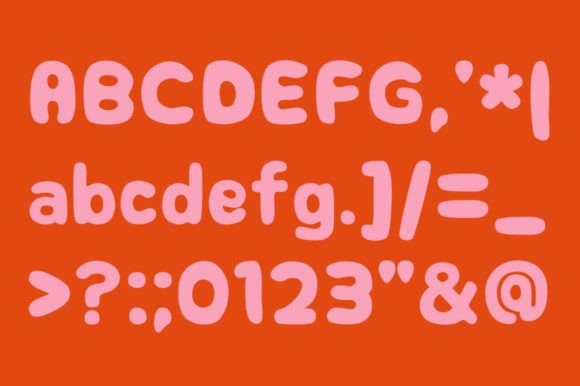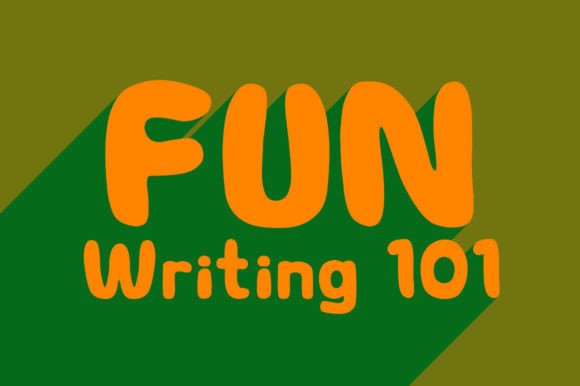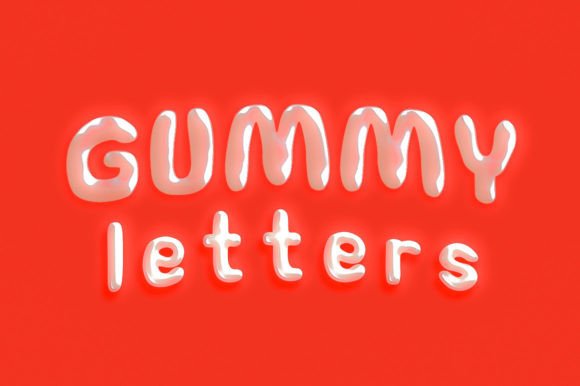
Introduction to Gummy Letter Font
As a designer, have you ever found yourself stuck in a creative rut, searching for that perfect font to give your project an extra oomph? You know, that moment when you’re scrolling through your design resources, and suddenly, a font catches your eye, and you just know it’s the one. For me, that moment came when I stumbled upon the Gummy Letter Font – a gum/gummy bear-inspired round fat bold font that’s been a game-changer for my design projects.
With its fun and casual look, the Gummy Letter Font is perfect for adding a personal touch to your projects. Whether you’re designing a logo, creating a brand identity, or taking notes, this font is sure to make your creative project stand out. And the best part? It’s available for free download, making it an accessible design resource for designers of all levels.
What sets the Gummy Letter Font apart is its high-quality design, which includes a transparent background option, allowing you to easily customize it to fit your project’s needs. Whether you’re working on a digital or print design, this font is a valuable addition to your design toolkit.
Key Features of Gummy Letter Font
- Unique, hand-drawn design for a creative project, perfect for adding a playful touch
- Perfect for adding a pop of color and whimsy to packaging, signage, and other creative projects
- Includes a range of lettering styles and combinations to suit different design themes and styles
Honest Review: Gummy Letter Font
I recently stumbled upon the Gummy Letter Font, a design resource that has been making waves in the creative community. At first glance, this font is a free download that’s perfect for adding a pop of color to your projects.
- ✨ High-quality design: The Gummy Letter Font is well-crafted and visually appealing, making it a great addition to any creative project.
- ✨ Versatile usage: This font is suitable for a wide range of designs, from social media graphics to web pages, and even print materials.
- ✨ Transparent background: The font’s transparent background makes it easy to place on top of images or other design elements.
- ⚠️ Limited character set: The font only includes a limited set of characters, which may be a drawback for some users.
- ⚠️ Not suitable for body text: Due to its playful and decorative nature, the Gummy Letter Font may not be the best choice for large blocks of text.
Overall, I’m impressed with the Gummy Letter Font’s design and versatility. While it may have some limitations, it’s a great resource for designers looking to add a fun and creative touch to their projects.
Gummy Letter Font
The Gummy Letter Font is a versatile design resource ideal for creative projects. With a high-quality, transparent background, it’s perfect for adding a fun and playful touch to your designs.
Tips for Getting the Most Out of Gummy Letter Font
For the best results, use the Gummy Letter Font in combination with other fun and playful design elements, such as colorful backgrounds and illustrations. You can also experiment with different font sizes and styles to add visual interest to your designs.
The Gummy Letter Font is perfect for a variety of creative projects, including children’s party invitations, social media graphics, and educational materials. You can also use it to add a fun touch to your personal blog or website.